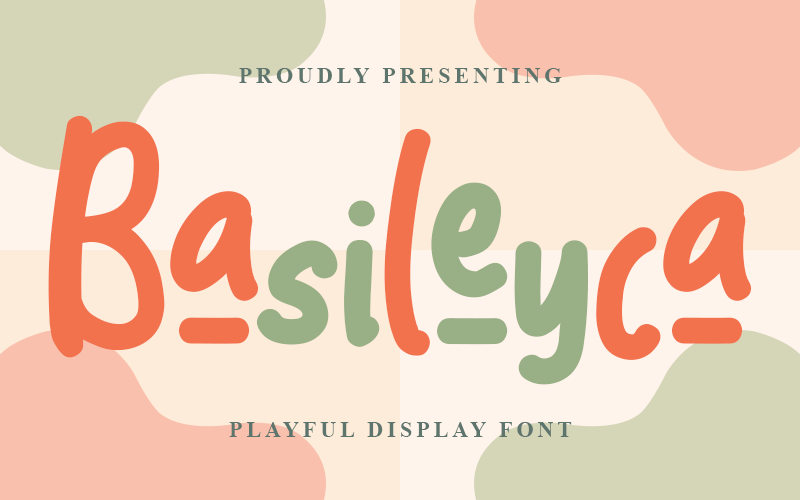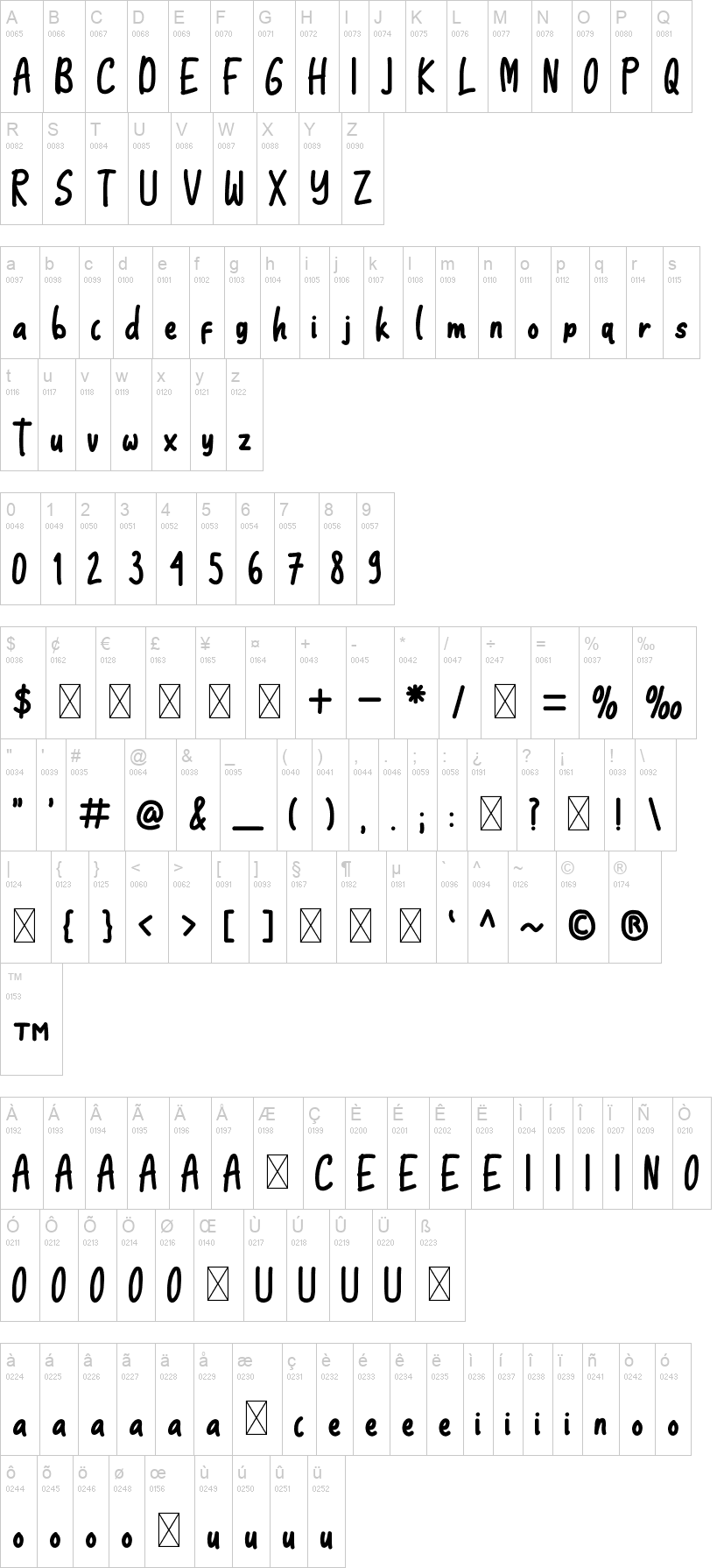
Note of the authorBasileyca Font is a Playful Display Font that really energetic, happy and cheerful.
This Font suits for various vector designs, printing such as digital wedding invitations, blogs, online shops, social media, while printing can be used in the field of product clothing, accessories, bags, pins, logos, business cards, watermarks and many others.